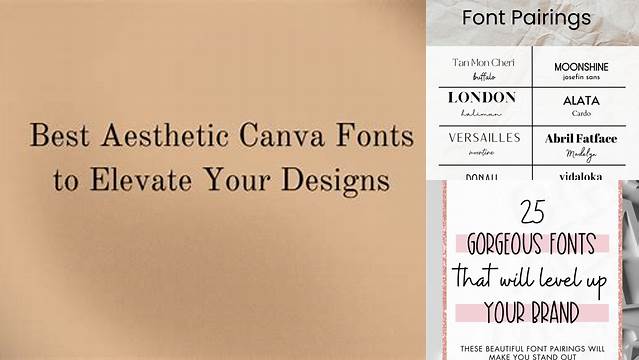
Best Aesthetic Fonts: Guide And Examples
Hey everyone, are you looking to jazz up your designs and make them pop? Well, you've come to the right place! We're diving deep into the world of best aesthetic fonts, the secret sauce that can transform your projects from blah to breathtaking. Whether you're a seasoned designer, a social media enthusiast, or just someone who loves to make things look pretty, choosing the right font is absolutely crucial. It's like picking the perfect outfit β it has to match the vibe and make a statement, right? This article will guide you through some of the best aesthetic fonts out there, explaining what makes them so special and how to use them to your advantage. So, buckle up, guys, because we're about to embark on a font-tastic journey!
Why Aesthetic Fonts Matter
Alright, let's talk about why aesthetic fonts are so darn important. Think about it: the font you choose sets the tone for your entire design. It's the first thing people notice, and it can instantly convey a mood, a feeling, or a message. Imagine trying to sell a luxury product with a clunky, generic font β it just wouldn't work, would it? The font would clash with the whole vibe you're trying to create, and your audience might get the wrong impression. On the flip side, choosing a gorgeous aesthetic font can elevate your brand, make your content more engaging, and even boost your sales. It's all about creating a visual experience that resonates with your audience. A well-chosen font can make your designs look professional, trustworthy, and stylish. It shows that you care about the details and that you've put thought into your work. Plus, let's be honest, using a beautiful font is just plain fun! It allows you to express your creativity and add your personal touch to everything you create. So, whether you're designing a logo, a website, a social media post, or a print ad, the right font can make all the difference. Now, choosing the right font is an art form, a balancing act between legibility, style, and the message you want to convey. You need to consider your target audience, the purpose of your design, and the overall aesthetic you're trying to achieve. Sometimes you want something bold and attention-grabbing, other times you need something elegant and understated. Understanding the different types of fonts and their characteristics is the first step in mastering this art. Fonts have personalities, guys. They evoke emotions, tell stories, and help you create connections with your audience. The right font can set the perfect mood. It's the secret weapon that allows you to connect with your audience on a deeper level, making your message more memorable and impactful. So, let's get started and explore some of the best aesthetic fonts that will help you take your designs to the next level!
Top Aesthetic Font Categories and Examples
Now that we know why aesthetic fonts are so important, let's get to the good stuff: the fonts themselves! We'll break down some of the most popular categories and showcase some of the best aesthetic fonts within each one. Get ready to be inspired!
Serif fonts are the classics, the OGs of the font world. They're the ones with the little decorative strokes, called serifs, at the ends of the letters. Think of them as the fonts that mean business β they're often associated with tradition, elegance, and sophistication. They're a great choice if you want to give your design a timeless and trustworthy feel. Serif fonts have been around for centuries, and they're still incredibly popular today, especially for body text in books, magazines, and websites. They're known for their readability and their ability to create a sense of authority. Here are some of the best aesthetic fonts in the serif category:
- Baskerville: This font is a true classic, known for its elegance and readability. It's perfect for long-form content and designs that need a touch of sophistication.
- Garamond: Another timeless choice, Garamond is known for its graceful curves and readability. It's a great option for anything from books to websites to branding.
- Playfair Display: Playfair Display is a high-contrast serif font that's perfect for headlines and titles. It's elegant, stylish, and makes a statement. It's ideal for adding a touch of luxury to your designs. Playfair Display is a free Google Font, so it's easy to use and experiment with. It has a distinctive look and feel that will make your text stand out. Playfair Display is also versatile. It works well in a variety of contexts.
- Bodoni: Known for its high contrast and sharp serifs, Bodoni is a bold and stylish choice. It's perfect for making a statement in headlines or branding materials. Bodoni exudes sophistication and is often associated with fashion and luxury brands. It's a powerful font that can instantly elevate your designs.
Sans-serif fonts are the cool, modern counterparts to the serifs. They lack the decorative strokes, giving them a clean, minimalist look. They're the perfect choice if you want your design to feel modern, sleek, and easy to read. Sans-serif fonts are incredibly versatile and are used everywhere, from websites and apps to advertising and branding. They're great for conveying a sense of simplicity and modernity. Here are some of the best aesthetic fonts in the sans-serif category:
- Helvetica: A true icon in the font world, Helvetica is known for its clean lines and excellent readability. It's a go-to choice for a wide range of applications.
- Arial: Similar to Helvetica, Arial is a versatile and easy-to-read font that's widely used. It's a great choice for both body text and headlines.
- Roboto: Roboto is Google's signature font and is used extensively on Android devices. It's a clean, modern, and highly readable font that works well in various contexts.
- Open Sans: Open Sans is another popular Google Font that's known for its excellent readability and versatility. It's a great choice for websites, apps, and other digital content.
Script Fonts
Script fonts are all about personality and flair. They mimic handwriting, giving your design a personal, artistic touch. They're perfect for adding a touch of elegance, romance, or playfulness to your designs. Script fonts can range from elegant and formal to playful and casual. However, they can sometimes be difficult to read, so they're best used sparingly, such as for headlines, titles, or short pieces of text. Some of the best aesthetic fonts in this category include:
- Great Vibes: Great Vibes is a beautiful, flowing script font that's perfect for adding a touch of elegance and romance. It's ideal for wedding invitations, greeting cards, and other special occasions.
- Dancing Script: Dancing Script is a playful and informal script font that's perfect for adding a touch of fun and personality. It's a great choice for social media graphics, logos, and other designs that need a touch of whimsy.
- Pacifico: Pacifico is a casual and friendly script font that's perfect for adding a touch of vintage charm. It's a great choice for logos, branding materials, and social media graphics.
Display Fonts
Display fonts are all about making a statement. They're designed to be eye-catching and memorable, and they're perfect for headlines, titles, and other large pieces of text. Display fonts can be bold, quirky, elegant, or anything in between. They're designed to capture attention and make your design stand out. Here are some of the best aesthetic fonts in the display category:
- Bebas Neue: Bebas Neue is a tall and condensed sans-serif font that's perfect for headlines and titles. It's bold, impactful, and makes a statement. Itβs a great free option for adding a bit of boldness to your designs.
- Montserrat: Montserrat is a geometric sans-serif font that's known for its clean lines and versatility. It's a great choice for headlines, titles, and other large pieces of text. It offers a modern and structured look that can be used in a wide range of design applications.
- Raleway: Raleway is an elegant sans-serif font that's perfect for headlines and titles. It's stylish, versatile, and adds a touch of sophistication to your designs. With its variety of weights, it can be used for various design purposes, from web design to branding.
How to Choose the Right Aesthetic Font
Okay, so we've covered some of the best aesthetic fonts, but how do you actually choose the right one for your project? Here are a few tips to keep in mind:
- Consider Your Brand: Your font should align with your brand's personality and values. Are you going for a sophisticated, playful, or modern look? Choose a font that reflects that.
- Think About Your Audience: Who are you trying to reach? Consider their preferences and the types of fonts they might find appealing.
- Prioritize Readability: Always ensure your font is easy to read, especially for body text. Avoid overly ornate or difficult-to-read fonts for large blocks of text.
- Experiment and Test: Don't be afraid to try out different fonts and see how they look in your design. Try different combinations and see what works best.
- Combine Fonts Wisely: Mixing fonts can add visual interest to your designs, but be careful not to overcrowd your layout. Choose fonts that complement each other and create a cohesive look.
- Understand Font Licensing: Always check the licensing of any font you plan to use, to make sure you can use it for your project. Some fonts are free for personal use, but you may need to purchase a license for commercial use. Make sure you follow the license terms to avoid any legal issues.
Combining Aesthetic Fonts: Best Practices
Let's talk about how to combine these amazing aesthetic fonts to make your designs even more outstanding. Mixing fonts can add visual interest and create a unique look, but it's easy to mess it up if you don't know what you're doing. Here's how to get it right:
- Contrast is Key: Combine fonts with contrasting styles. For example, pair a strong sans-serif font with a delicate script font. The contrast makes your design more dynamic and interesting. When selecting fonts, consider factors like weight, size, and style. The goal is to create a balance that is both aesthetically pleasing and easy to read.
- Limit the Number of Fonts: Don't go overboard! Using too many different fonts can make your design look cluttered and unprofessional. Stick to two or three fonts maximum, and use them consistently throughout your project. This helps maintain a consistent look and feel across your design. Remember, simplicity often leads to the most effective results. When choosing fonts, keep your overall design concept in mind.
- Consider Font Families: Choose fonts from the same family. These fonts are designed to work well together. They often share similar design elements, which makes it easy to create a cohesive design. Font families include a variety of weights and styles that provide flexibility.
- Hierarchy Matters: Use different fonts to create a visual hierarchy. Use a bolder or more attention-grabbing font for headings and titles, and a more readable font for body text. Font hierarchy organizes content, making it easier to follow and understand. Remember, the goal is to guide the viewer's eye. The correct font hierarchy will help you showcase your information efficiently.
- Balance is Crucial: Achieve a balance between your fonts. A well-balanced font combination creates visual harmony, which helps the design. Experiment with how your fonts interact. Try different sizes and weights to find the best balance. Balancing font choices is a skill that improves with practice. The perfect font combination is the one that best conveys your message to your target audience.
Where to Find Aesthetic Fonts
Alright, now that you're all fired up and ready to go, where do you find these best aesthetic fonts? Luckily, there are tons of resources available, both free and paid:
- Google Fonts: This is a goldmine of free, open-source fonts that you can use for personal and commercial projects. It's an excellent starting point for finding great fonts.
- Adobe Fonts: If you have an Adobe Creative Cloud subscription, you have access to a vast library of high-quality fonts. This is a great option if you're already using Adobe products.
- Font Squirrel: This website offers a curated collection of free fonts that are perfect for various design projects. They also have a font identifier tool.
- MyFonts: This is a marketplace where you can purchase a wide variety of fonts from different designers. It's a great resource for finding unique and stylish fonts.
- Creative Market: Creative Market is a marketplace for all things creative, including fonts. You can find a wide range of fonts from independent designers.
Conclusion: Elevate Your Designs
So there you have it, guys! We've covered the best aesthetic fonts and everything you need to know to make your designs stand out. Remember, the right font can make all the difference. Choose wisely, experiment, and have fun creating! Go out there and transform your designs with the perfect font. Happy designing, and thanks for reading!